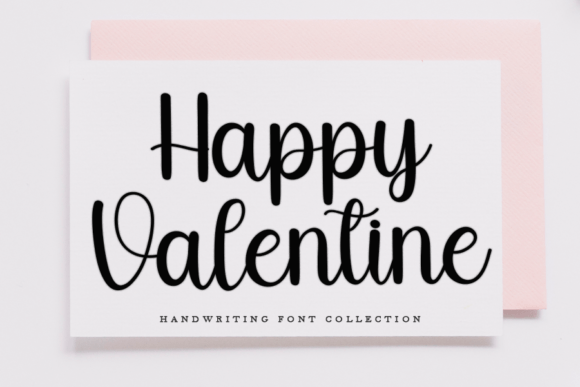
Embark on a romantic typographic journey with Happy Valentine, a script font brimming with elegance and charm. This stunning creation by Creatype Designer is not just a font; it's an expression of love, crafted to add a touch of enchantment to your creative projects.
Step into a world where words dance with grace, where every letter is a stroke of romance. Happy Valentine's timeless style evokes the allure of handwritten love letters, whispering sweet nothings to the hearts of your readers. Whether you're designing a heartfelt logo, crafting enchanting invitations, or adding a personal touch to your social media posts, Happy Valentine will make your words bloom with beauty.
With its delicate curves and flowing lines, Happy Valentine captures the essence of handwritten elegance, making it the perfect choice for adding a touch of sophistication to your designs. Its versatility extends from logos and branding to wedding invitations and heartfelt notes, allowing you to infuse your projects with a timeless charm that will leave a lasting impression.
Indulge in the beauty of Happy Valentine and let your creativity flourish. Its elegant charm will elevate your designs, adding a touch of romance and sophistication that will make your projects stand out from the crowd. Experience the joy of creating with Happy Valentine and let your designs speak volumes of love and beauty.
Unlock the endless possibilities of Happy Valentine today and embark on a typographic adventure that will leave you smitten. With its elegant curves, timeless style, and versatility, this font is the perfect choice for designers seeking to create enchanting and heartfelt designs that capture the essence of love and romance. Fall in love with Happy Valentine and let your creativity bloom!